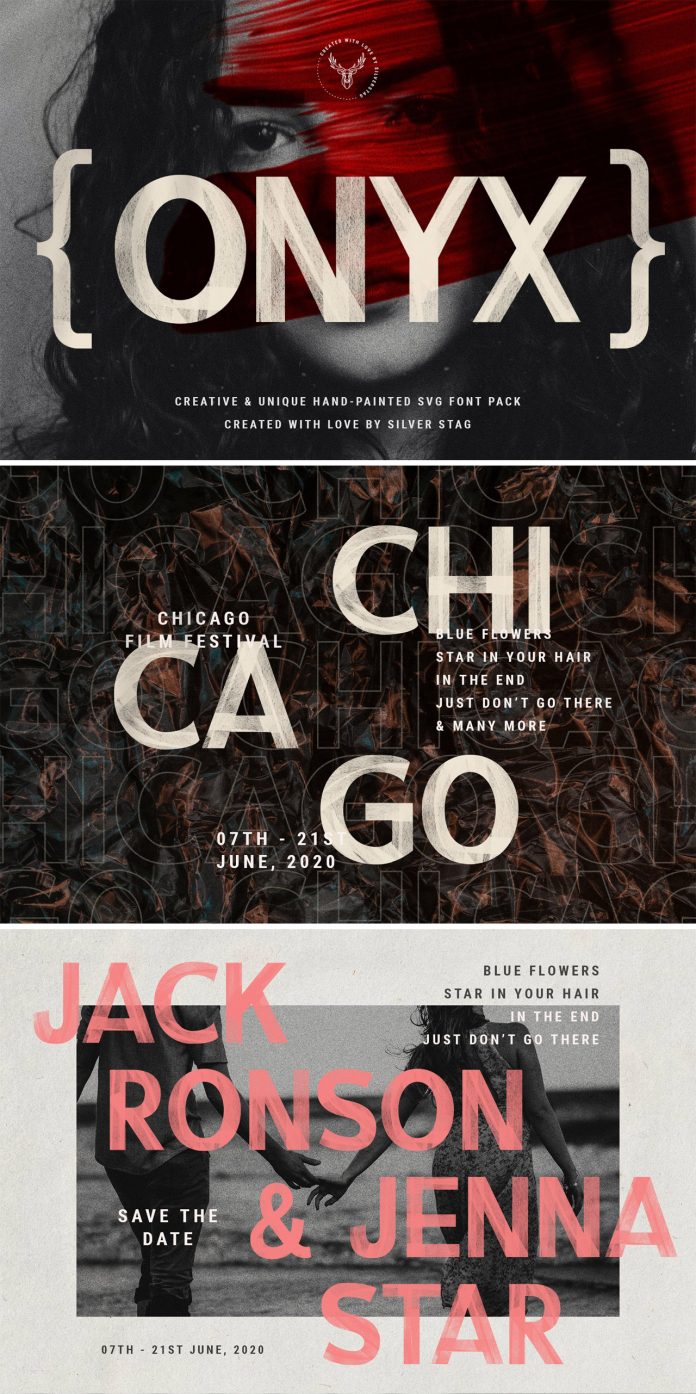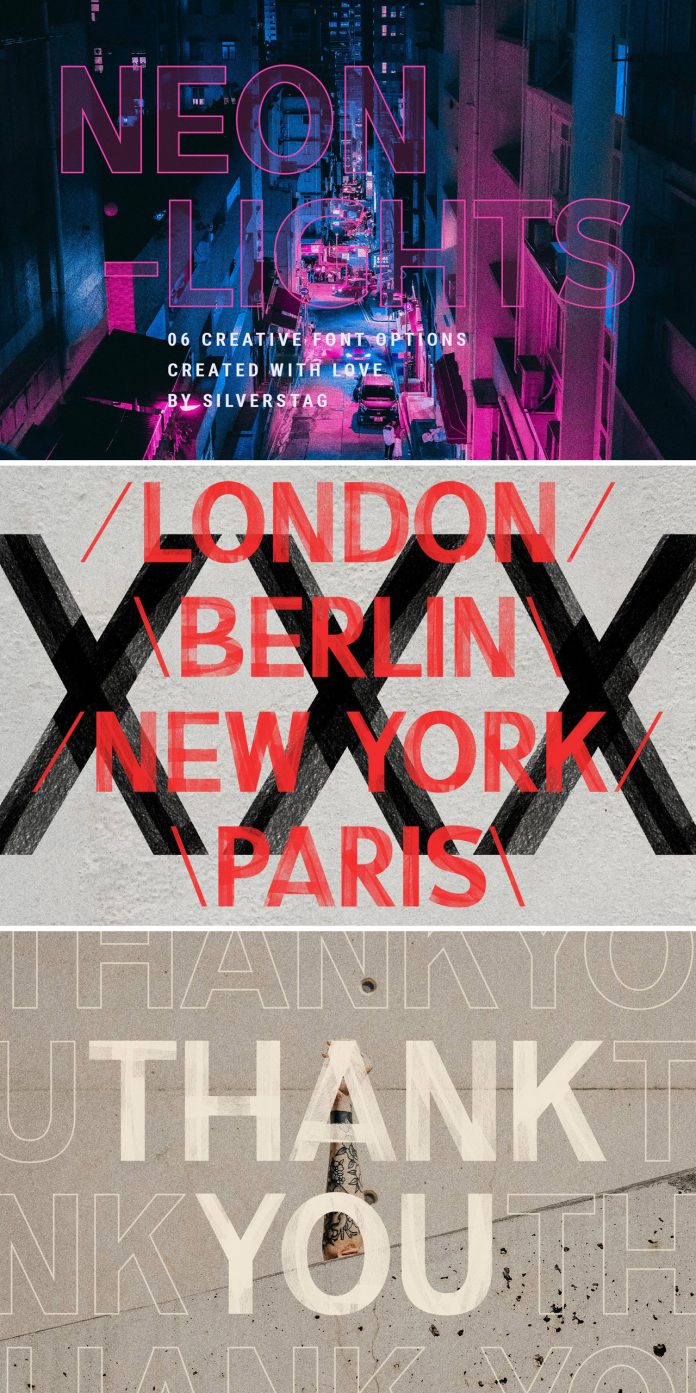
ONIX, a hand-painted SVG font pack created and published by SilverStag.
ONIX is a unique typeface that comes with six different font options in one pack. This way, you will get two SVG hand-painted fonts in high resolution as well as two outline fonts and 2 standard fonts that can be used if your software doesn’t support the SVG versions.